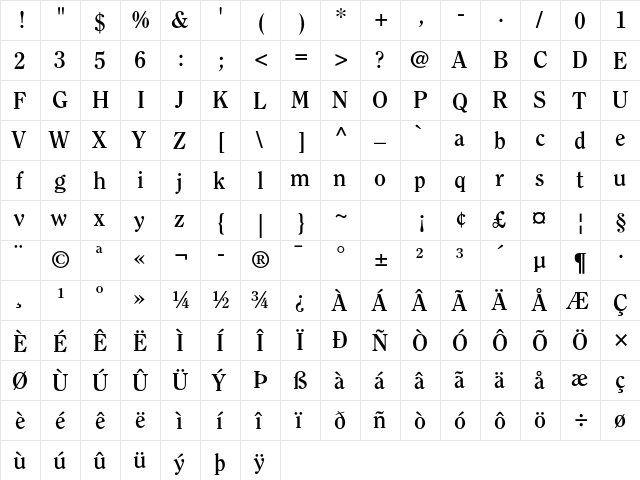
ITC Clearface Std Bold
Bold ·  Vic Caruso ·
DesignerVic Caruso
Design Context for ITC Clearface Std Typeface
ITC Clearface Std offers clean, dependable letterforms without strong stylistic allegiance, making it a practical choice for designers who need flexibility. Its bold stroke weight gives it real presence on the page.